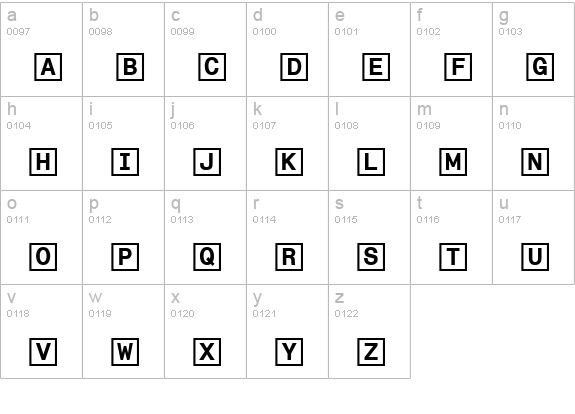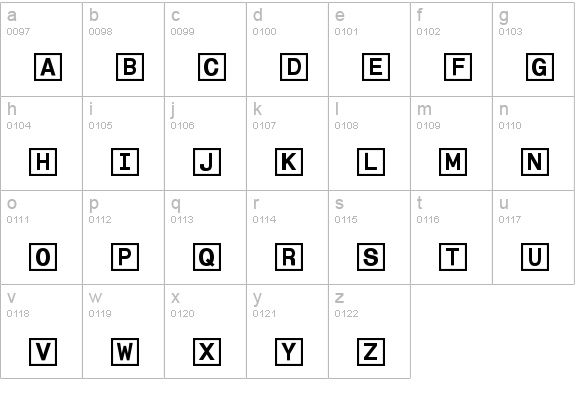
Introducing Boxed In font, a modern and edgy typeface that is sure to make your designs stand out! This unique font features bold lines and sharp angles, giving it a contemporary and eye-catching look. Whether you're creating posters, logos, or social media graphics, Boxed In font will add a touch of sophistication to your projects. But the best part? Boxed In font is completely free to download at FontsMarket.com! That's right, you can elevate your designs with this stylish font without spending a dime. Don't miss out on the opportunity to enhance your creative work with the striking Boxed In font - download it today and let your imagination run wild!